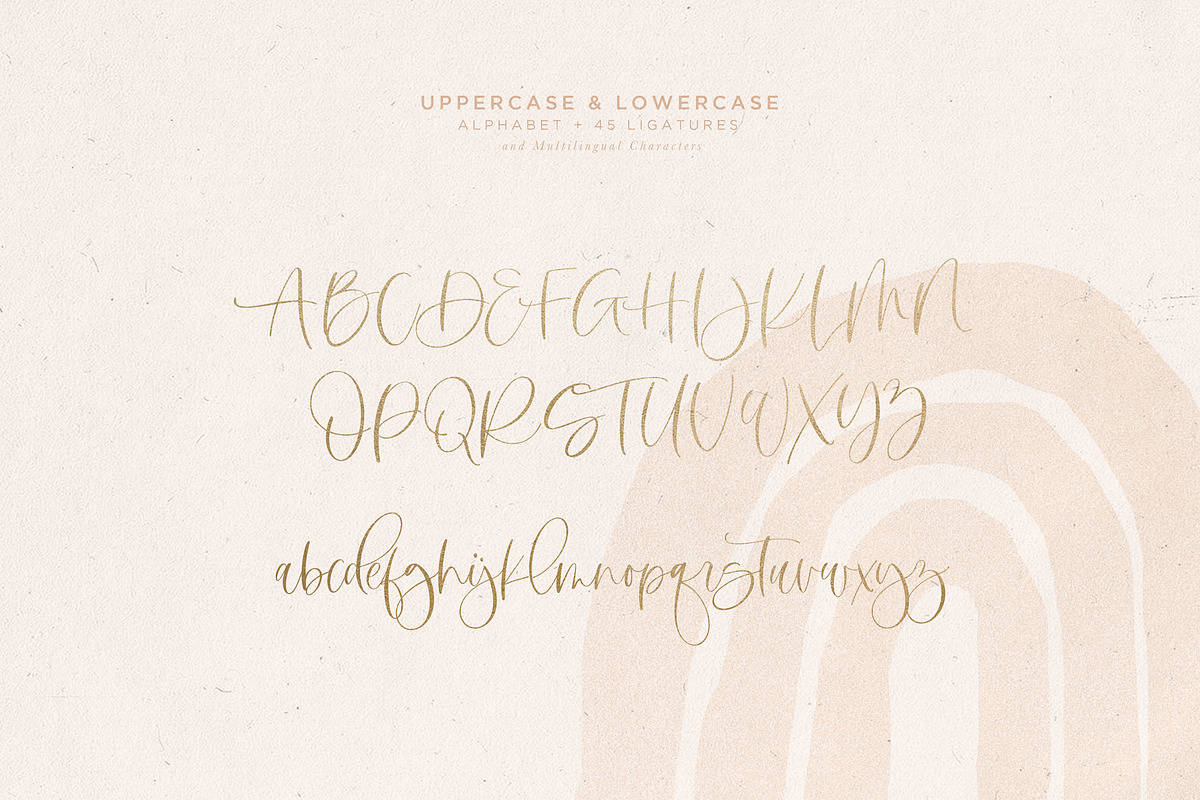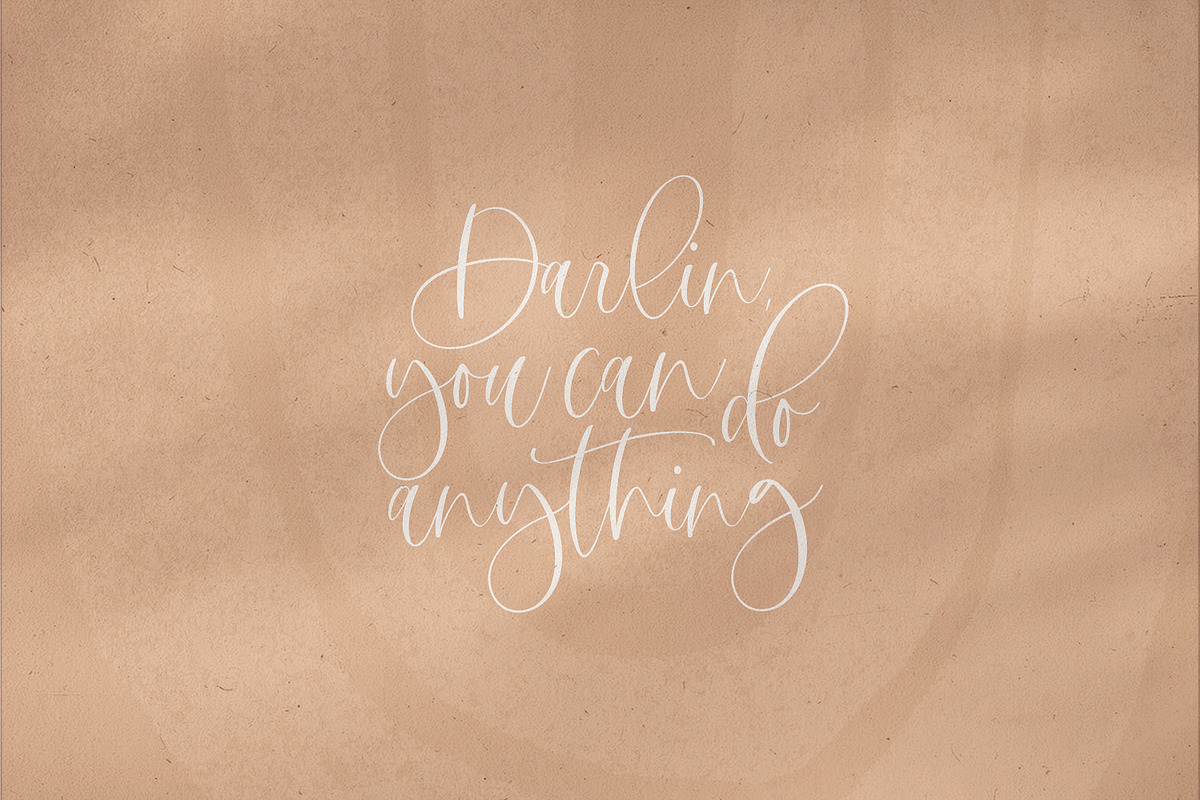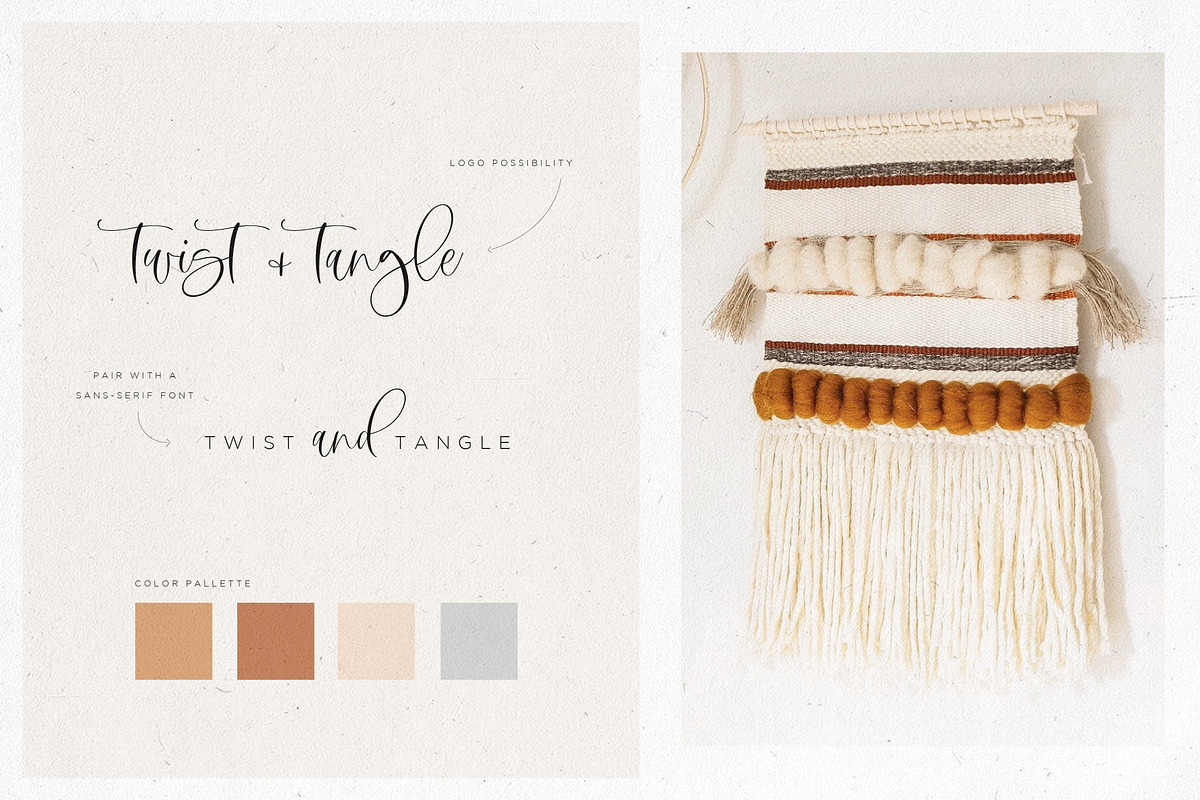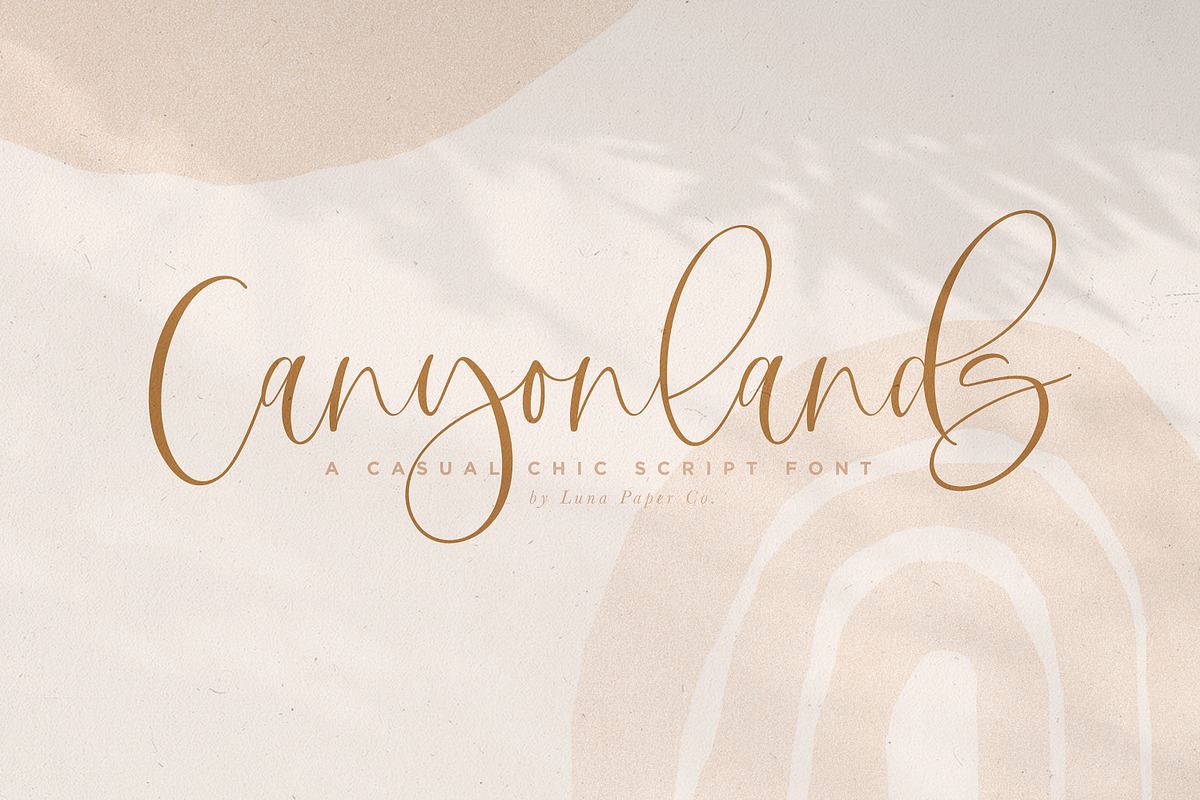
Canyonlands Script Font
Say hello to summer with the beautiful, new Canyonlands Script font! This casual-chic, hand-lettered script font is perfect for styling logos, stationery, social media, websites and so much more!
The multilingual characters included are as follows: ÁĂÂÄÀĀĄÅÃÆĆČÇÐĎĐÉĚÊËĖĒĢÍÎÏÌĪĮĶĹĽĻŁŃŇŅŊÑÓÔÖÒŐŌØÕŒÞŘŔŚŖŠŞŦŤŢÚÛÜÙŰŪŲŮẂŴẄẀ ÝŶŸỲŹŽŻáăâäàāąåãæćčçðďđéěêëėèēģíîïìīįķĺľļłńňņŋñóôöòőōøõœþŕřŗśšşßŧťţúûüùűūųůẃŵẅẁýŷÿỳźžż